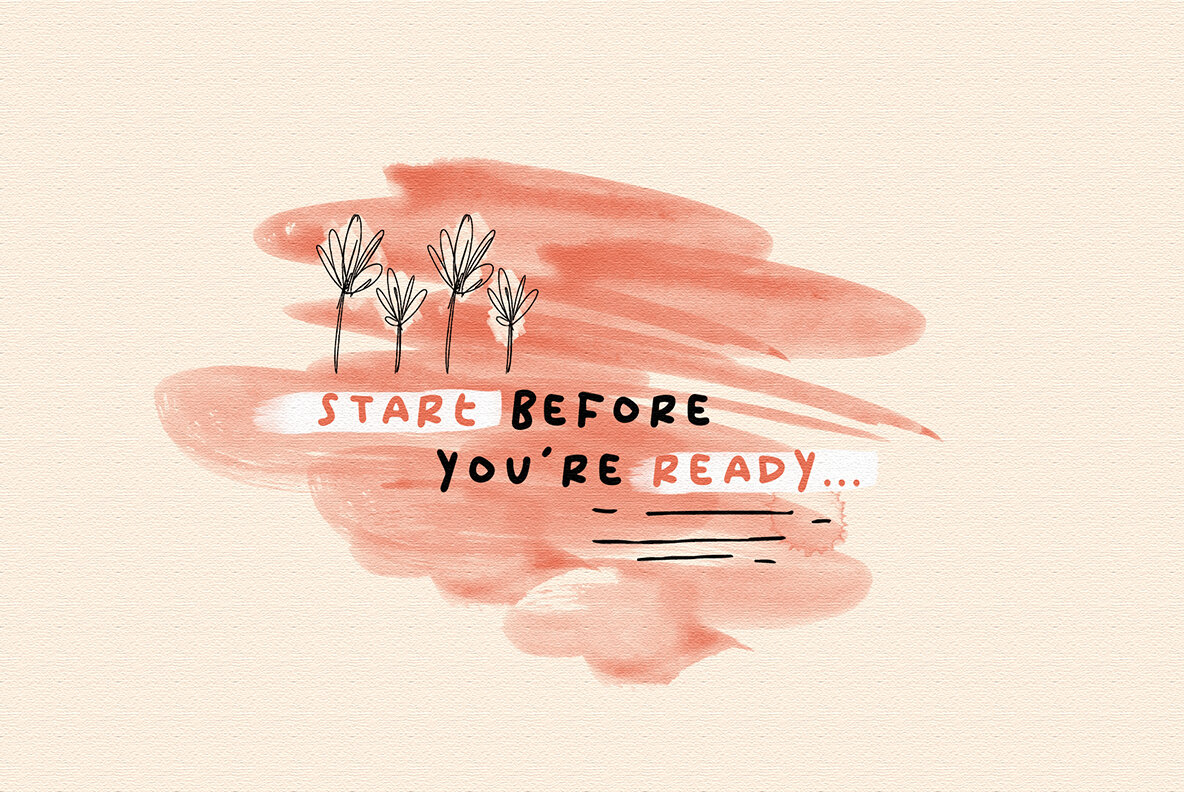
Unspoken Font
Unspoken
Unspoken by Invasi Studio is a unique handwritten font designed to amplify the personal touch in your digital storytelling. Its quirky and expressive character makes it an excellent choice for capturing the nuances of everyday tales. Whether you're crafting handwritten notes, memorable quotes, or heartfelt greeting cards, Unspoken adds an authentic layer of emotion to your work.Unspoken: A Story Handwritten Font